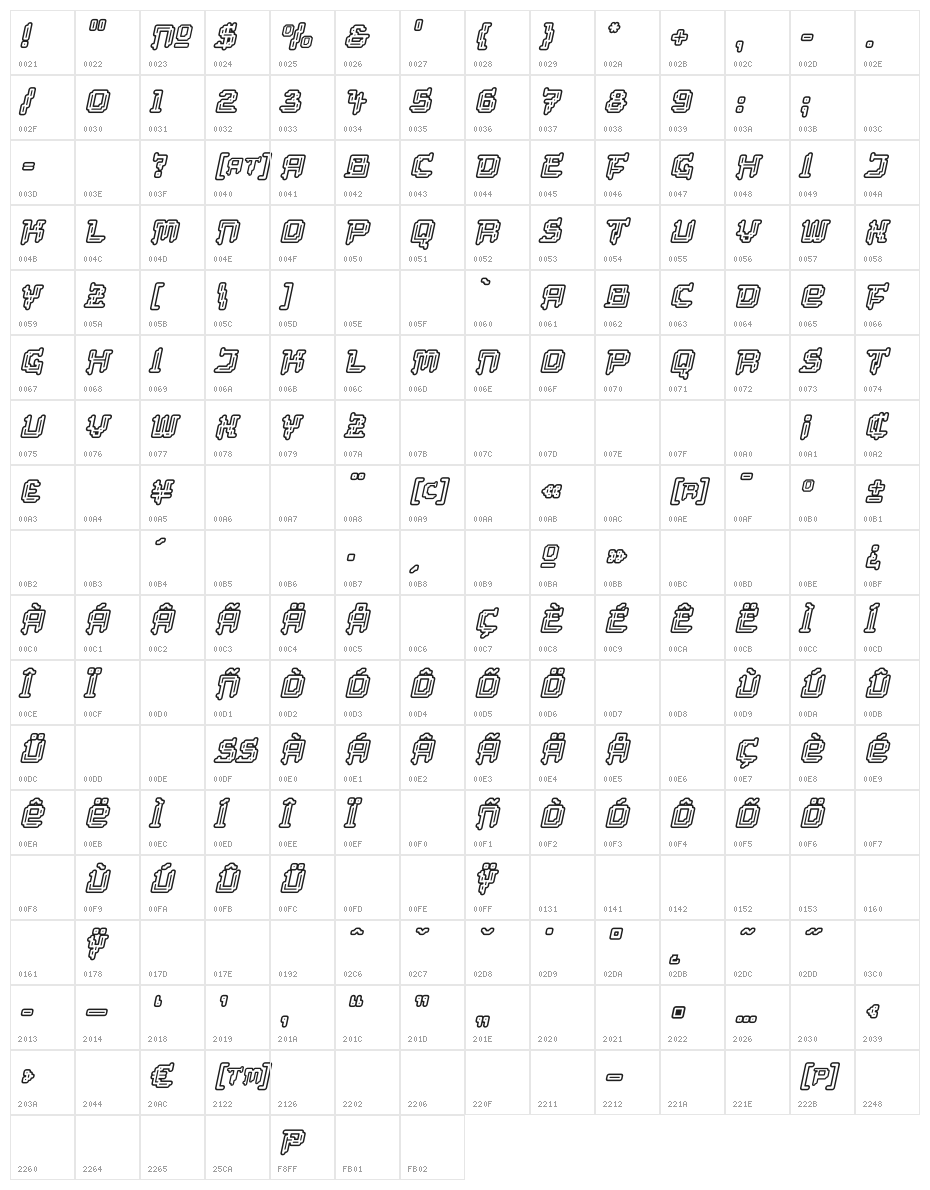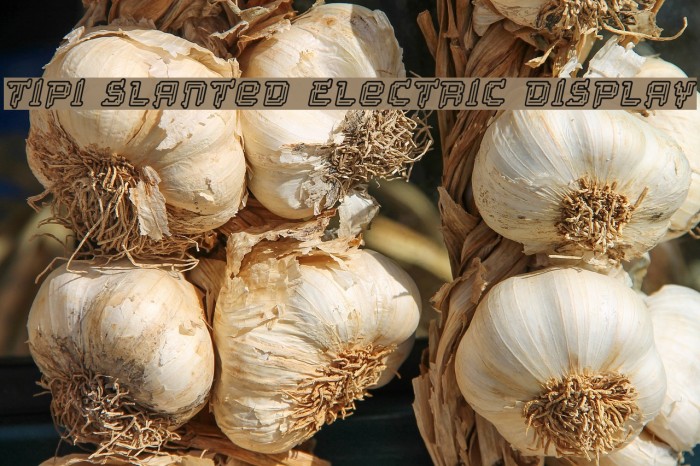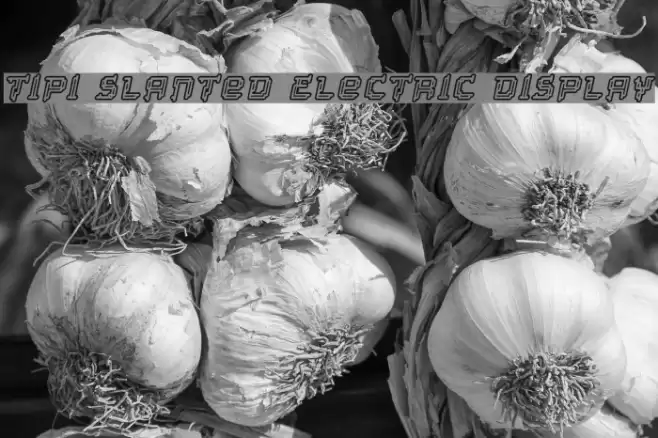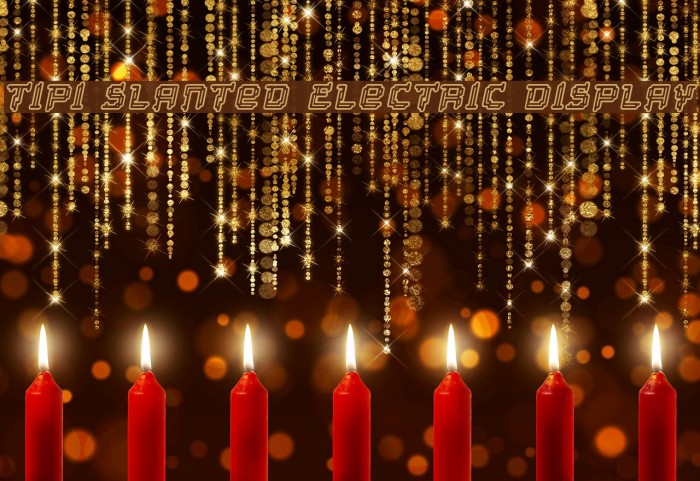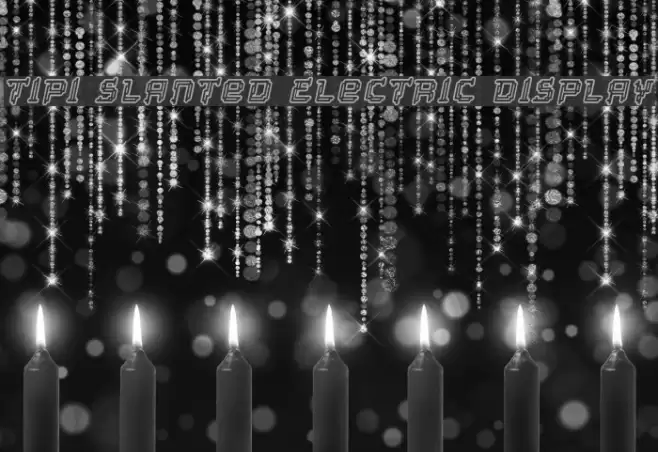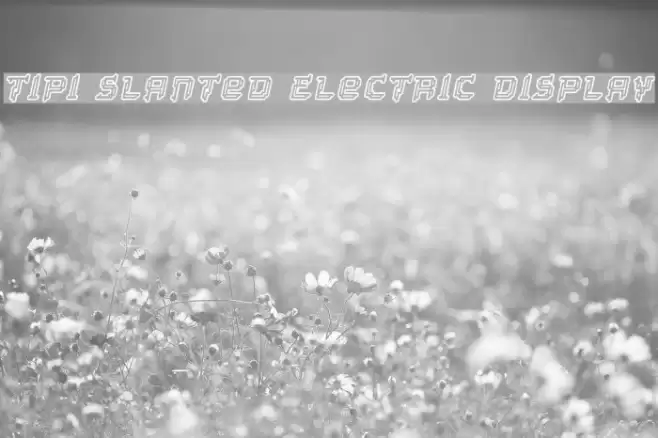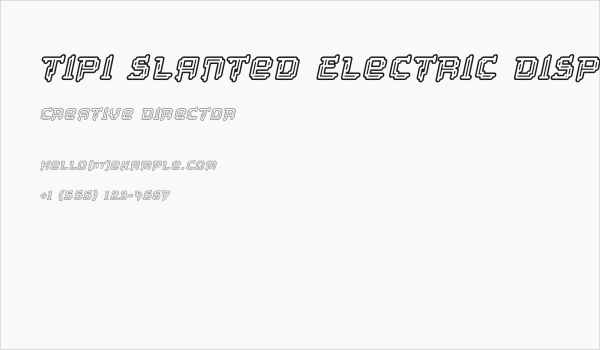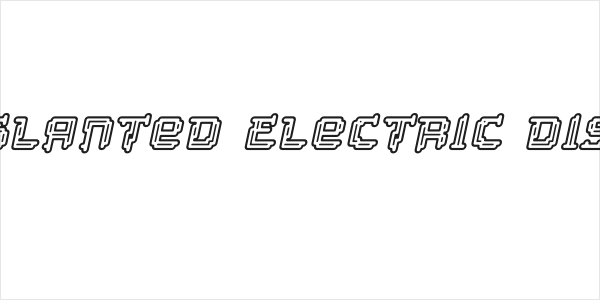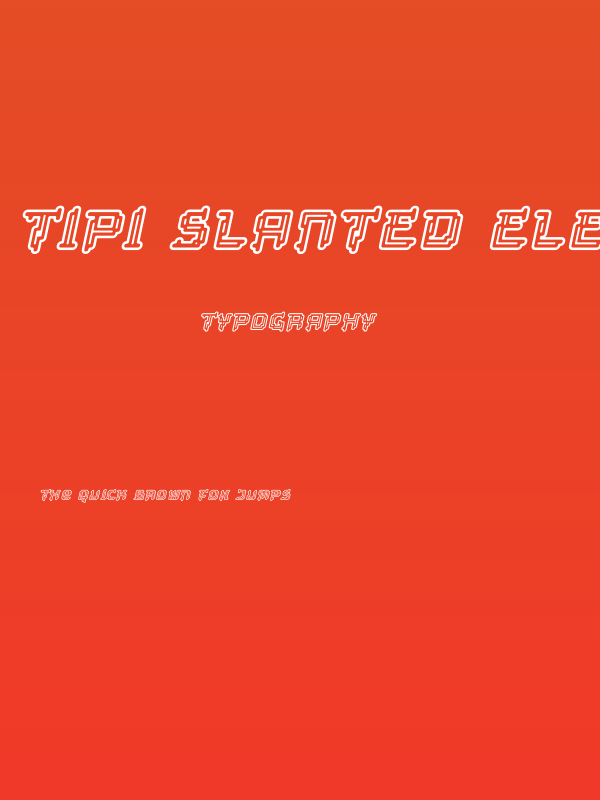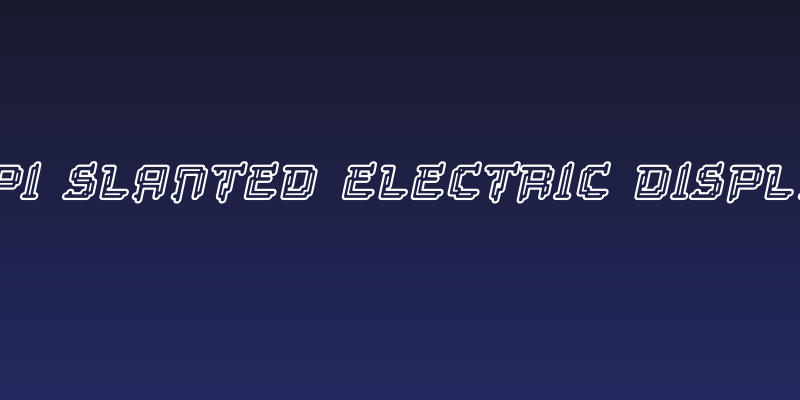
Tipi Slanted Electric Display Font
Tipi Slanted Electric Display Description
This font features a bold, electric style with a slanted, dynamic appearance. The characters are outlined with a double-layered effect, giving them a three-dimensional look. The angular, geometric shapes of the letters convey a sense of movement and energy, making it ideal for eye-catching designs. The uppercase and lowercase letters maintain a consistent style, with sharp edges and a futuristic vibe. The numerals and special characters are designed to match the overall aesthetic, ensuring a cohesive look across all text elements.
| Overall Style | Modern, Futuristic |
| Proposed Projects | Ideal for futuristic designs, tech-related branding, video game titles, and dynamic posters. |